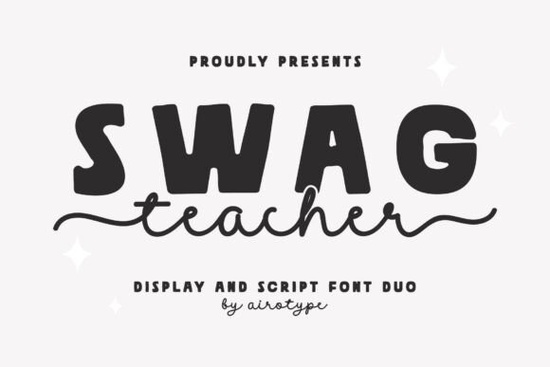
If you're looking for a playful yet polished typeface that brings personality to teacher-themed designs or any project needing cheerful charm the Swag Teacher Font is worth a closer look. This font duo pairs an imperfect all-caps display style with a smooth monoline handwritten script featuring elegant swashes. Together or used separately, they add a festive, handcrafted feel without looking overly busy.
Designed with versatility in mind, Swag Teacher works beautifully across t-shirts, classroom posters, birthday cards, stickers, tumblers, and sublimation projects. Whether you’re a small business owner creating back-to-school merch or a crafter personalizing gifts for educators, this font delivers a modern fun vibe that still feels approachable and genuine.
What makes Swag Teacher stand out from other script fonts?
Unlike many overly ornate script fonts, Swag Teacher balances whimsy with readability. The display font’s slight imperfections mimic real handwriting giving your designs authenticity while the monoline script keeps things clean and contemporary. The included swash characters let you add flair only where needed, so your layout never feels cluttered.
How can I use this font beyond teacher-themed projects?
While “teacher” is in the name, the font’s upbeat energy fits far more than just classroom decor. Think:
- Birthday party invitations with a handmade touch
- Motivational quote prints for home or office
- Custom keychains or enamel pins with short uplifting words
- Branded packaging for small-batch goods (think coffee bags or soap labels)
- Social media graphics that need friendly, eye-catching headlines
The key is pairing the two styles intentionally: use the bold display font for headlines or single words, and the handwritten version for supporting text or names. This contrast creates visual rhythm without competing for attention.
What other fonts pair well with Swag Teacher?
If you’re building a toolkit of go-to typefaces for craft or print-on-demand work, consider complementary scripts that share its casual elegance. For example, Sweet Muse offers delicate loops and soft curves ideal for romantic or feminine accents alongside Swag Teacher’s bolder presence. When you need something with more bounce and energy, Bigboy brings dynamic movement that still reads clearly at small sizes.
For minimalist projects where you want subtle sophistication, Avonia provides refined letterforms that won’t overpower. And if you’re designing something youthful but tidy like kids’ apparel or school event flyers Evelina Hand offers a neat, natural handwriting alternative that mixes seamlessly with Swag Teacher’s looser strokes.
If you create teacher appreciation gifts, classroom decor, or upbeat lifestyle products, this font duo adds character without complexity and that’s a win whether you’re crafting for fun or profit.